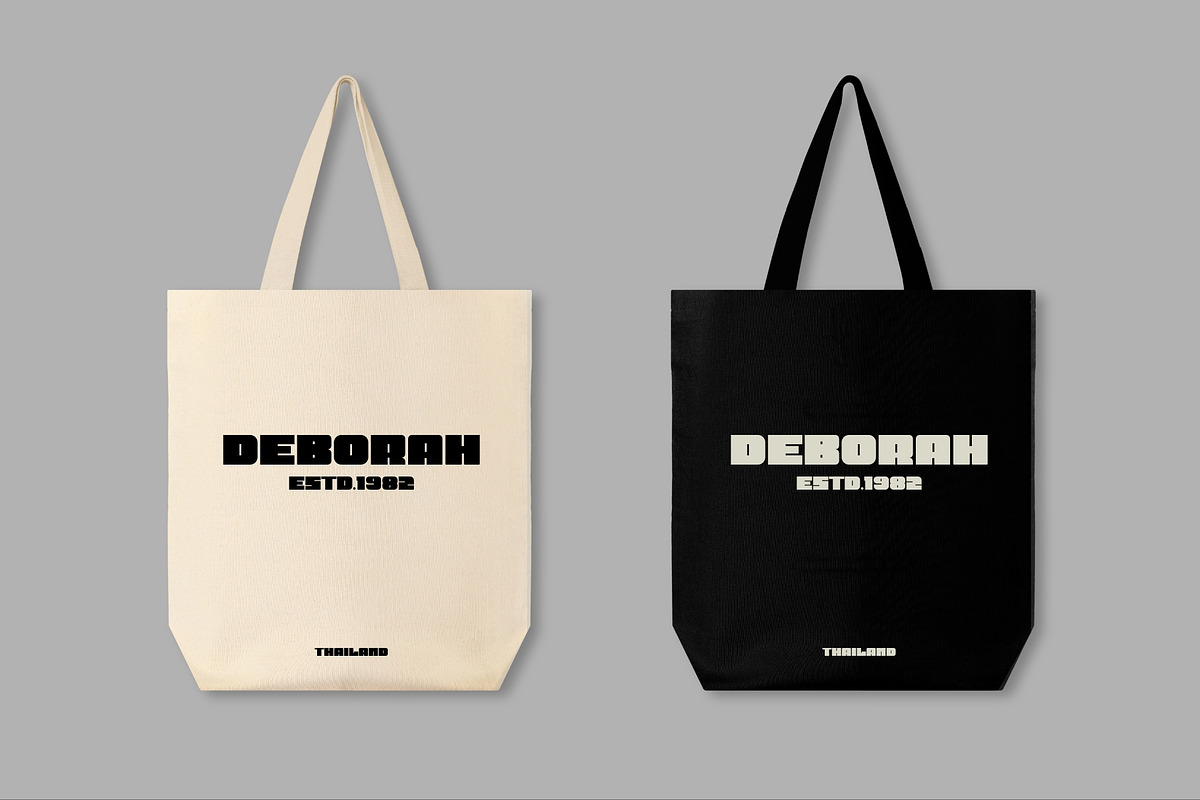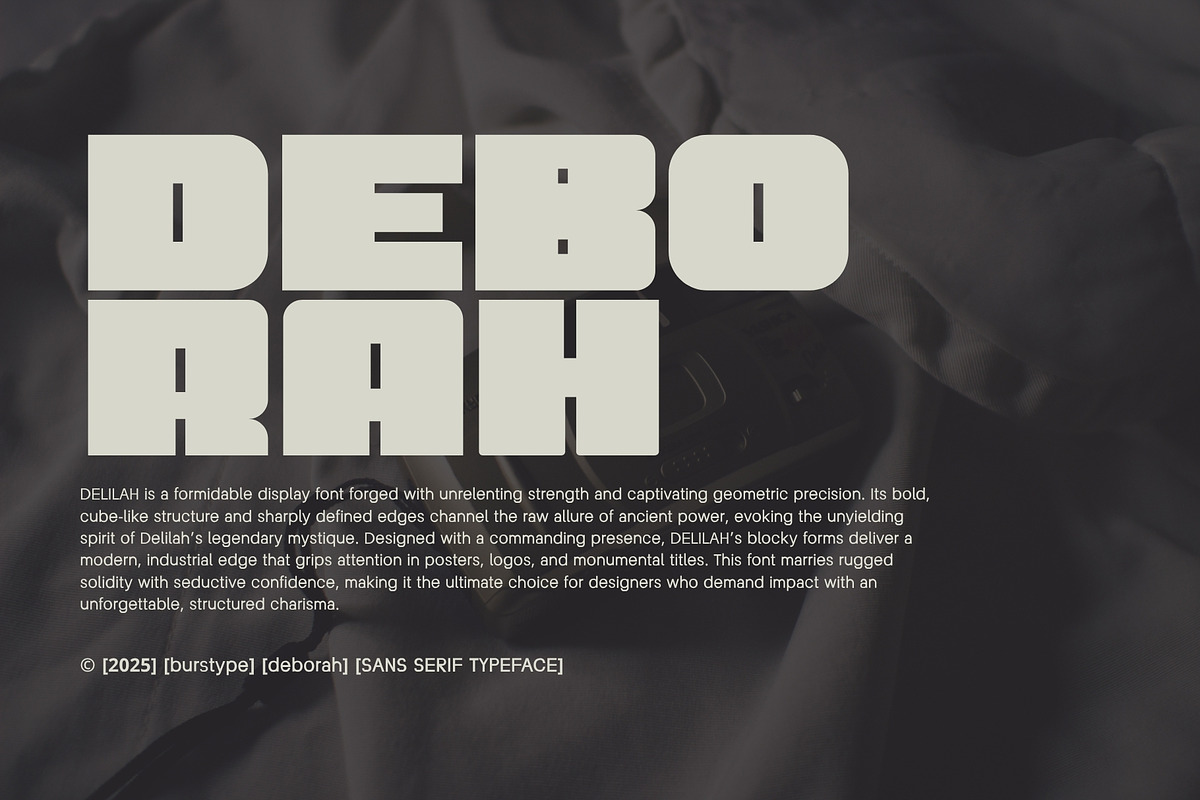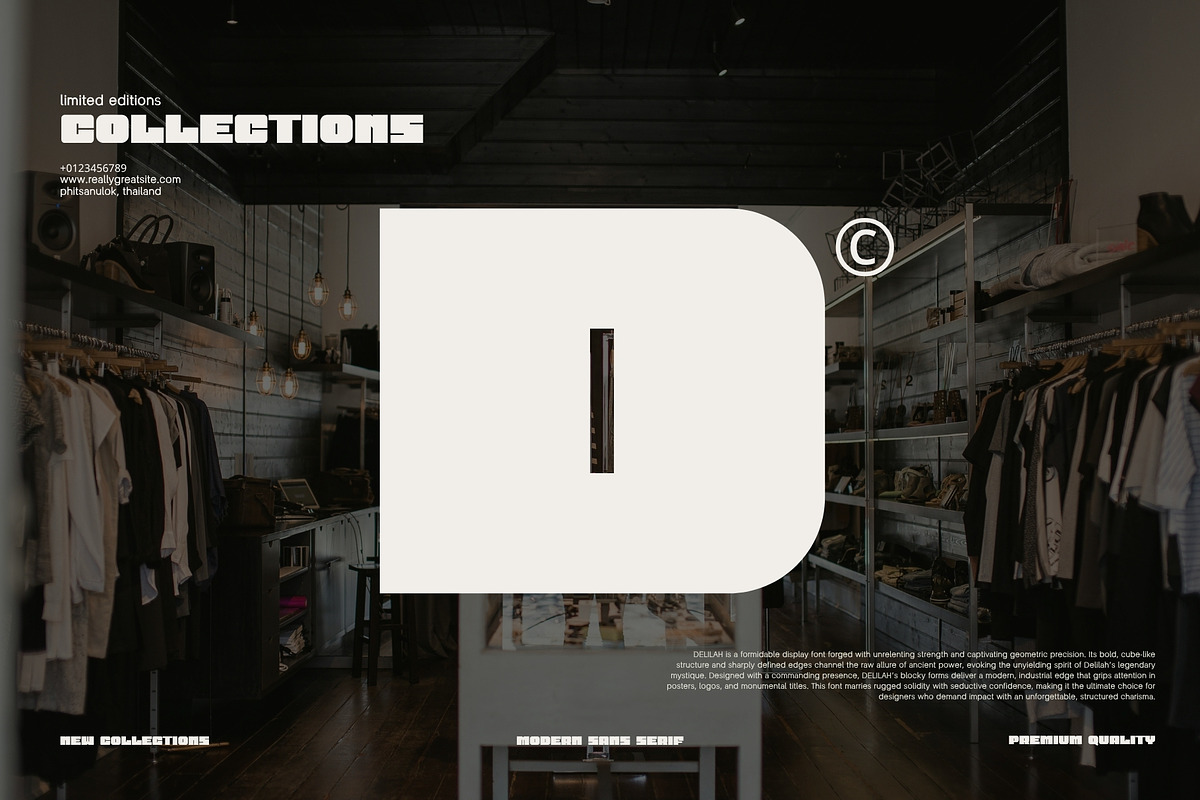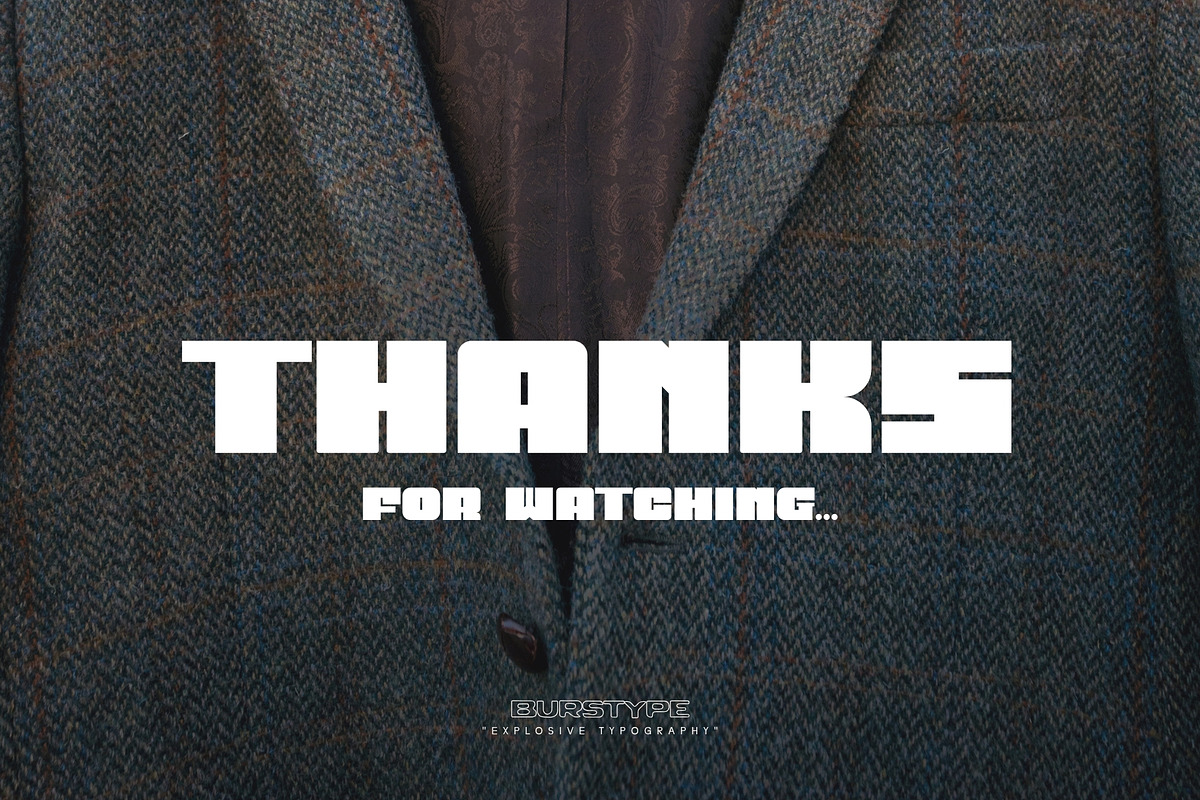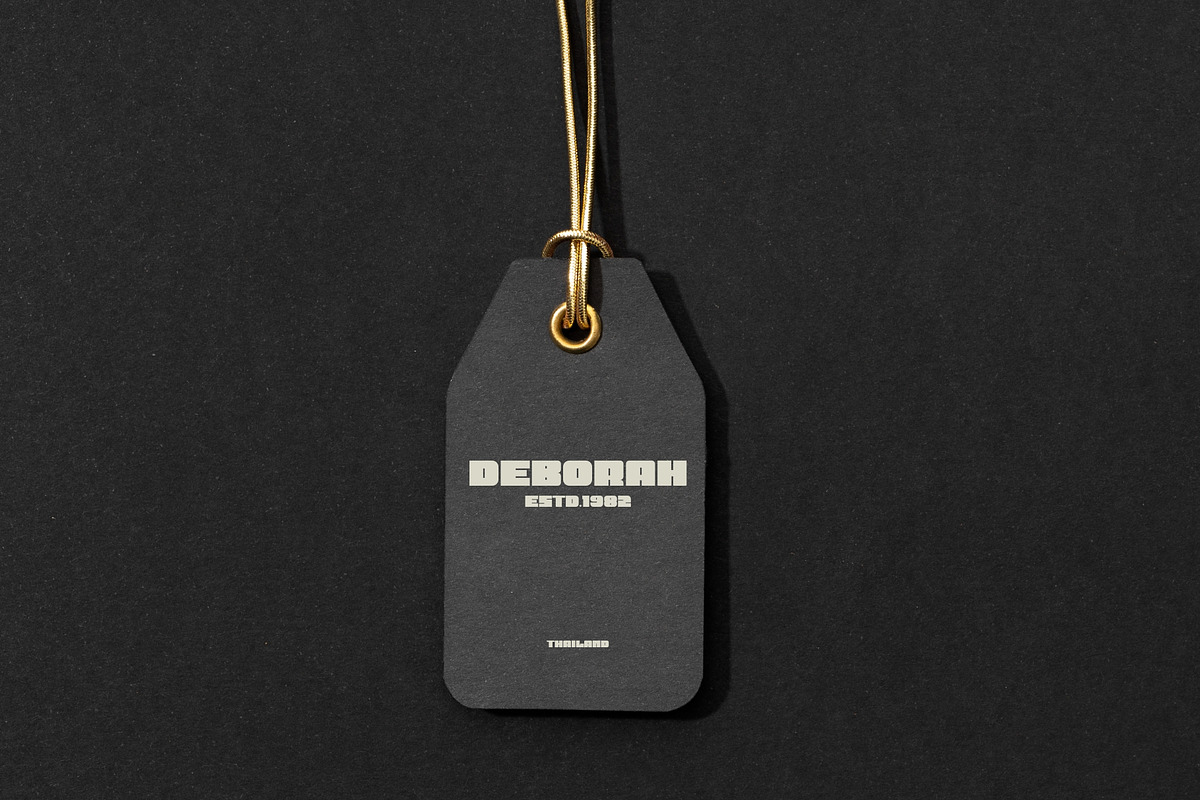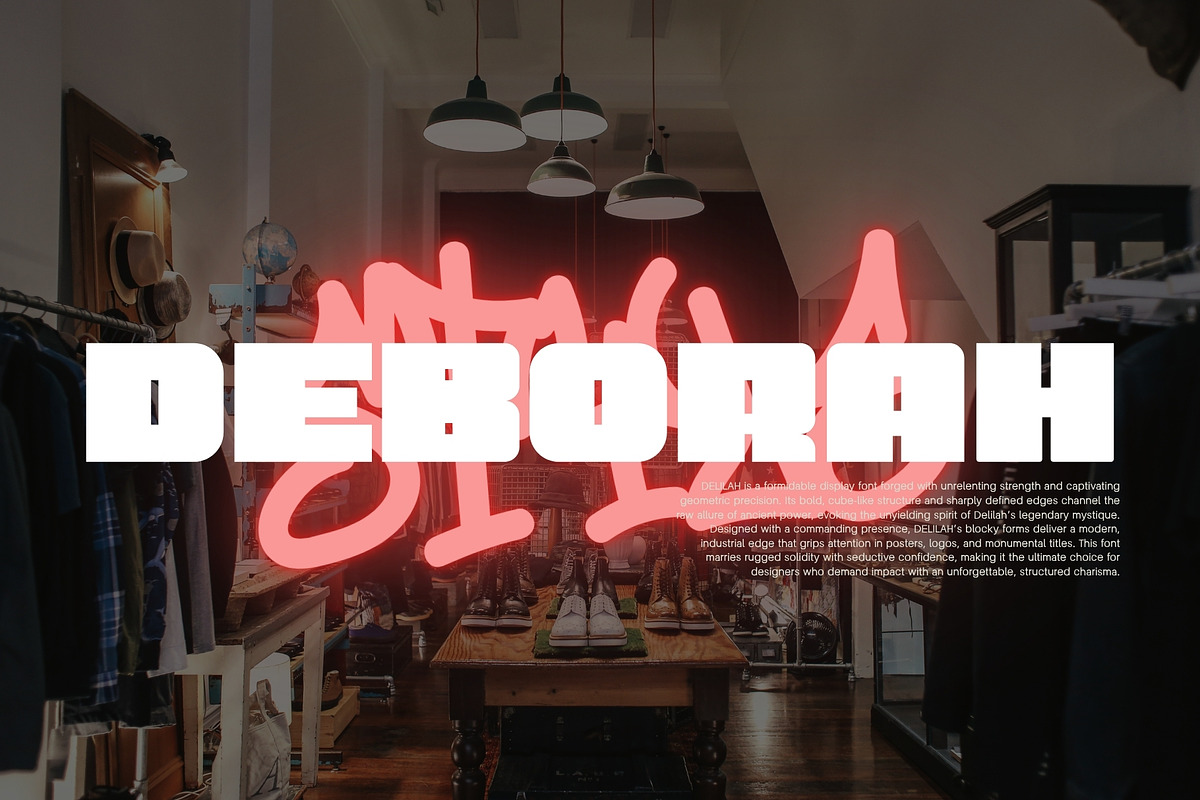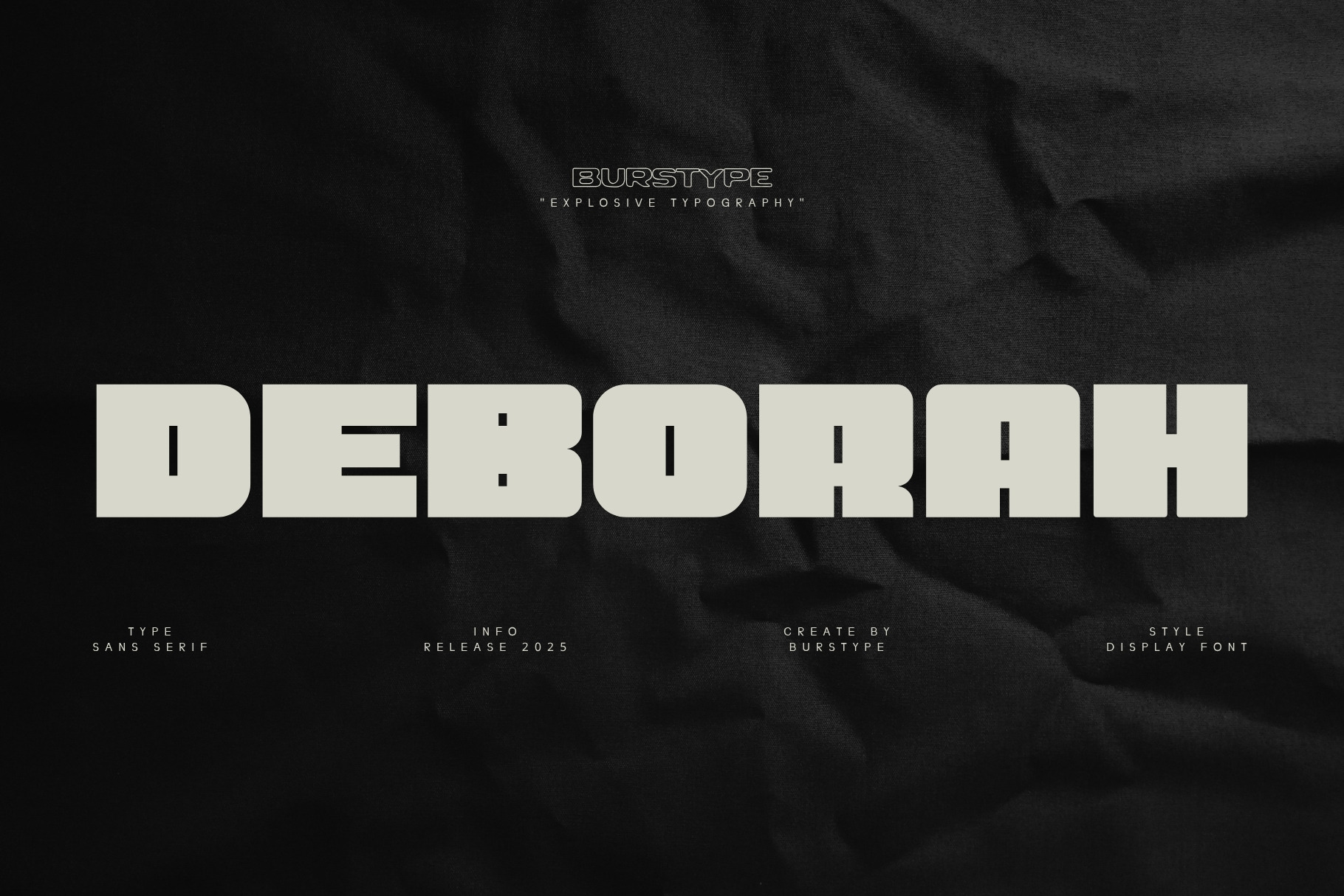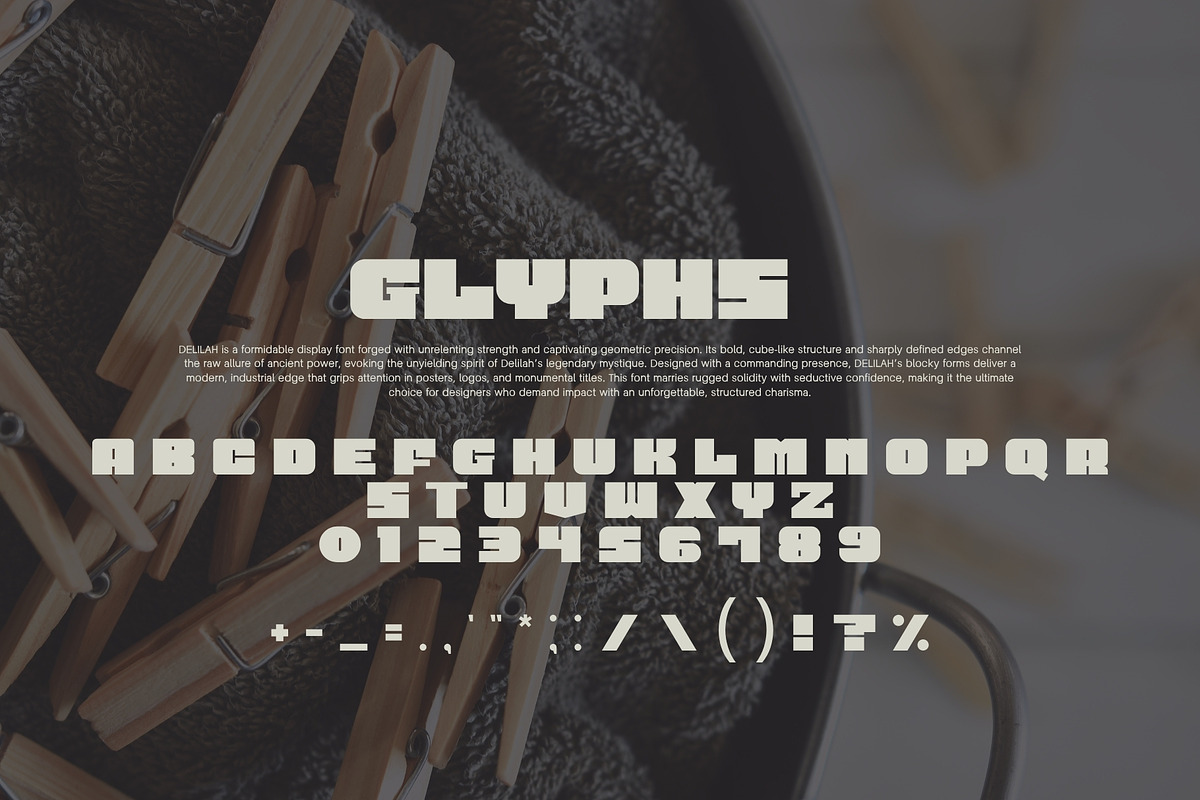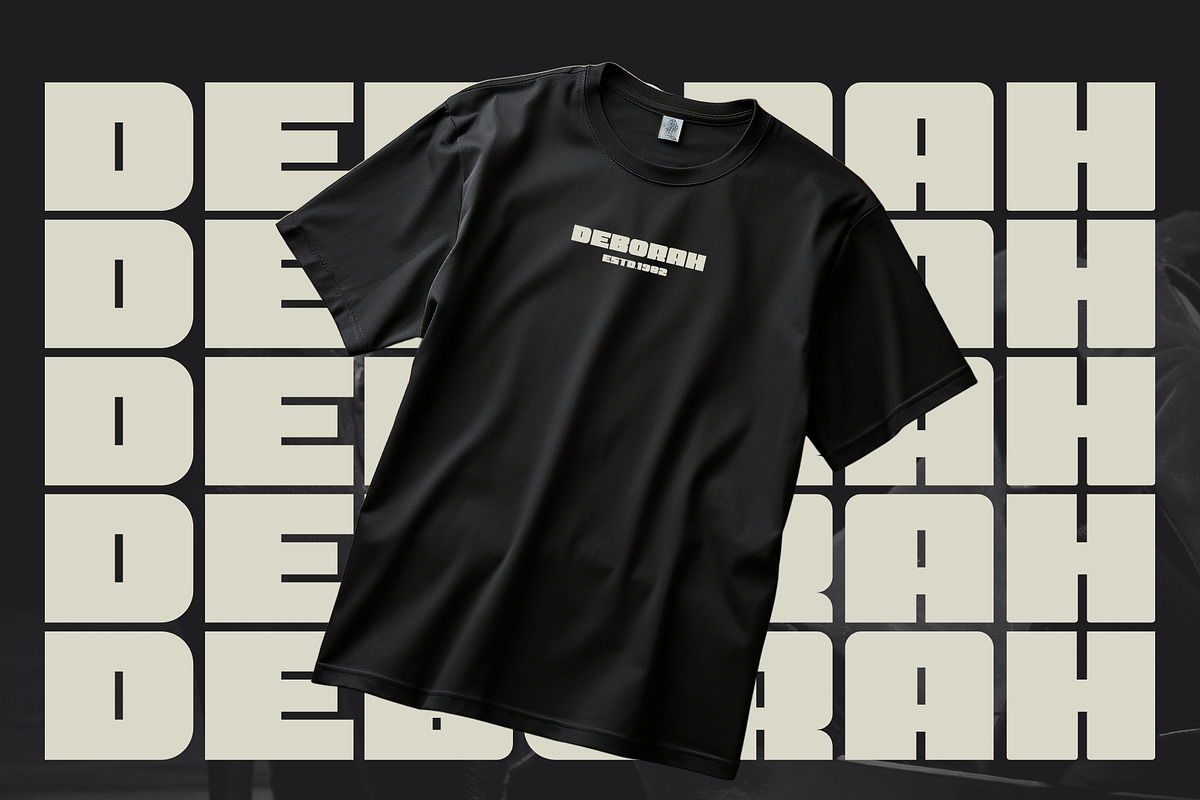
DEBORAH MODERN DISPLAY FONT
Deborah is a graceful yet bold san serif font that embodies wisdom and elegance. Inspired by the timeless strength of its biblical namesake, its refined curves and sturdy structure make it perfect for editorial designs, book covers, and sophisticated branding. Let Deborah elevate your projects with its poised, commanding presence.